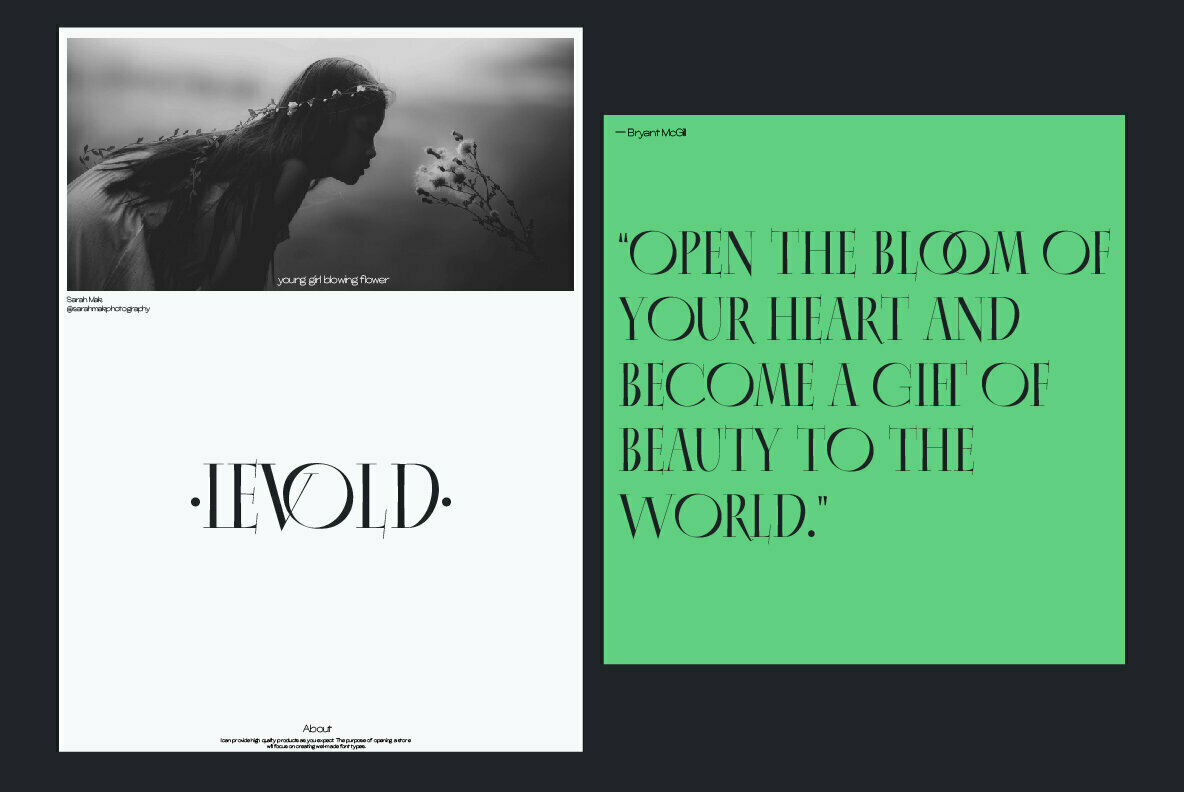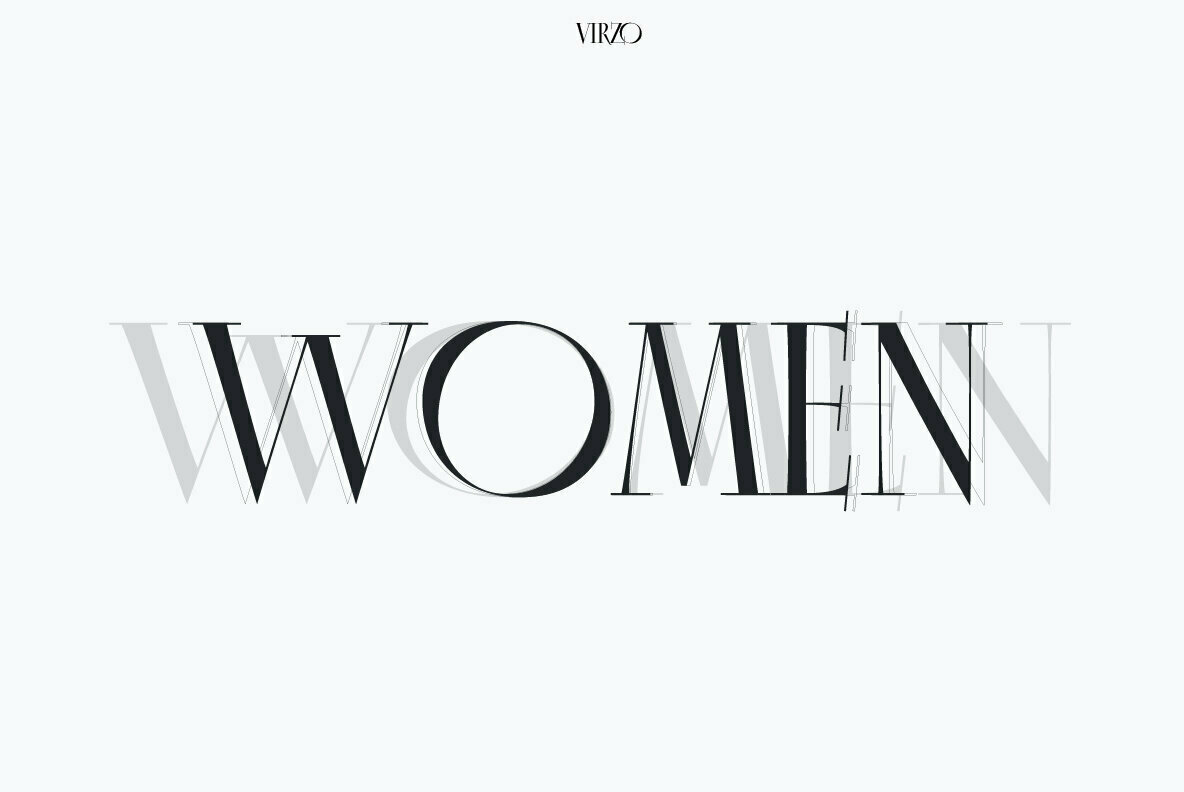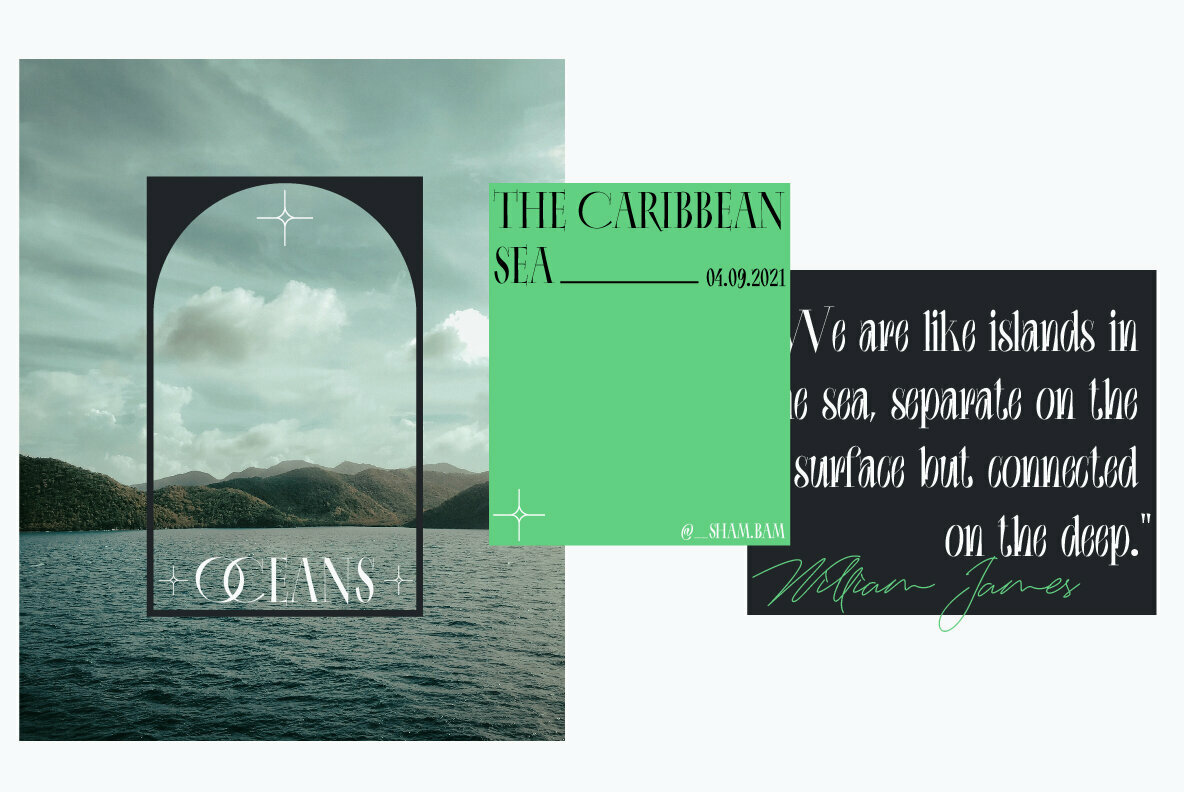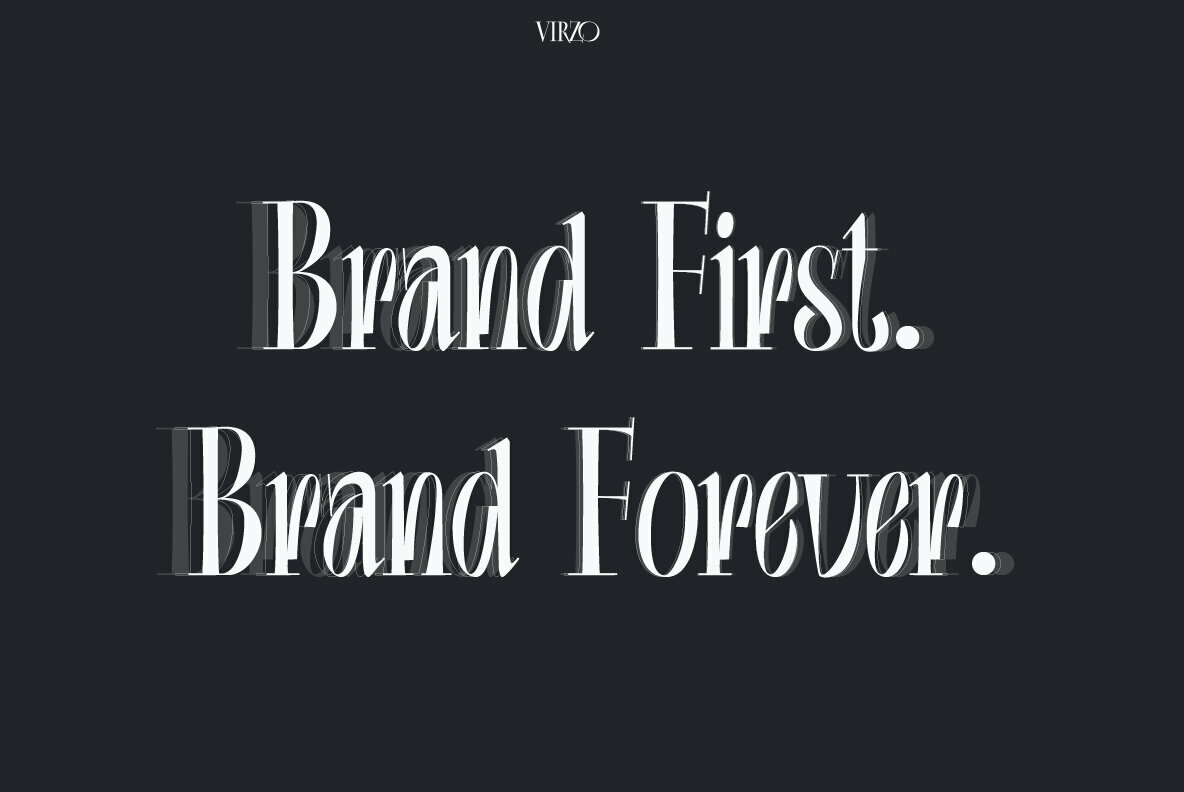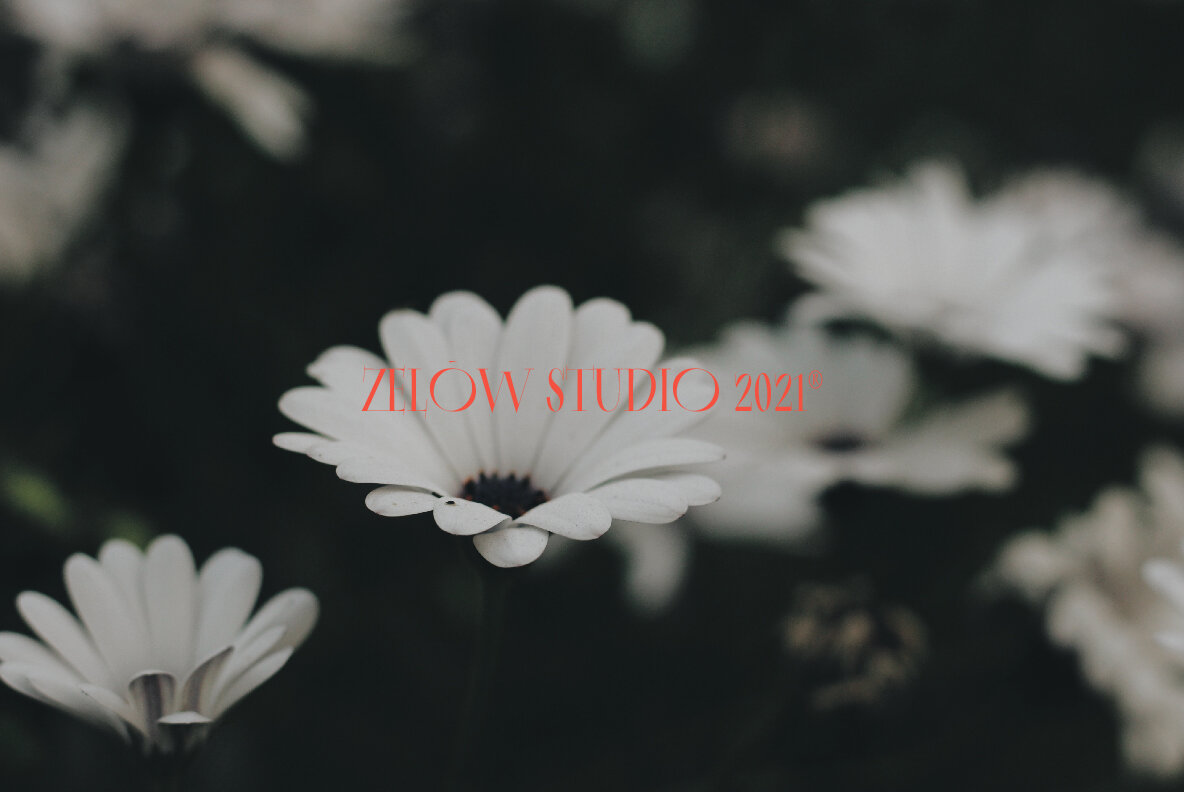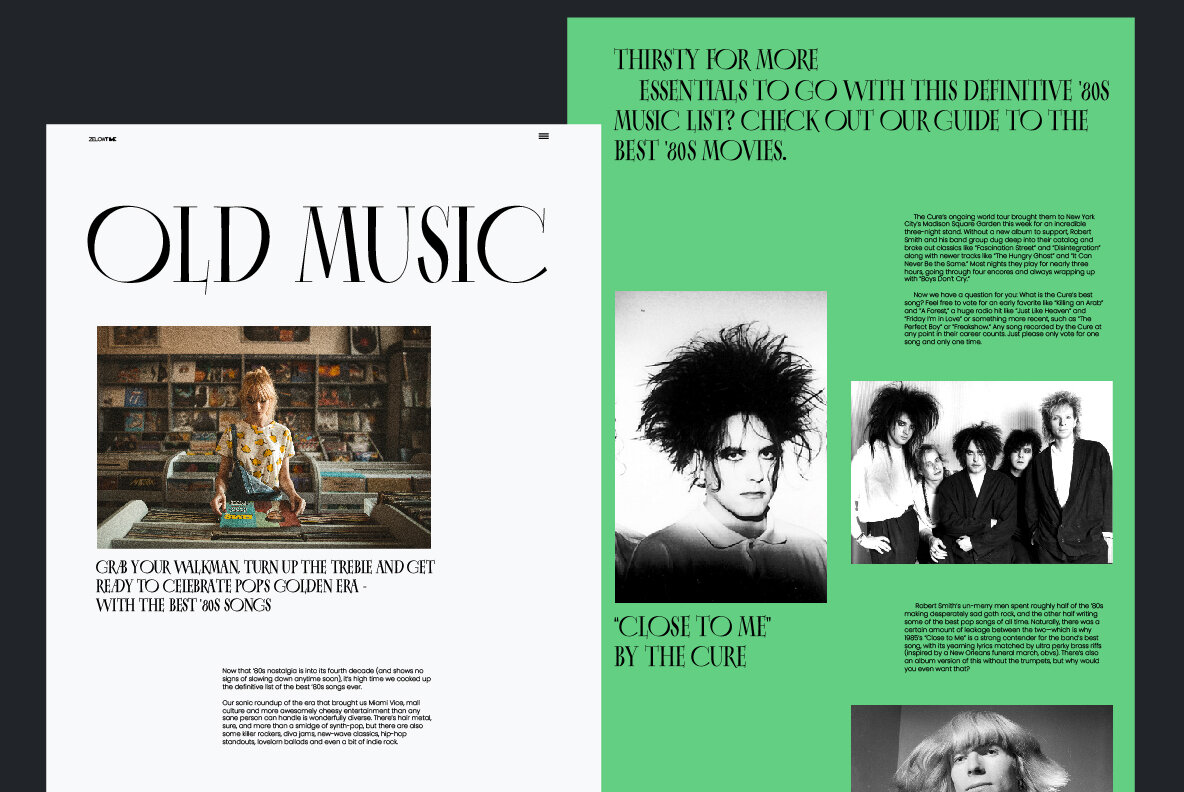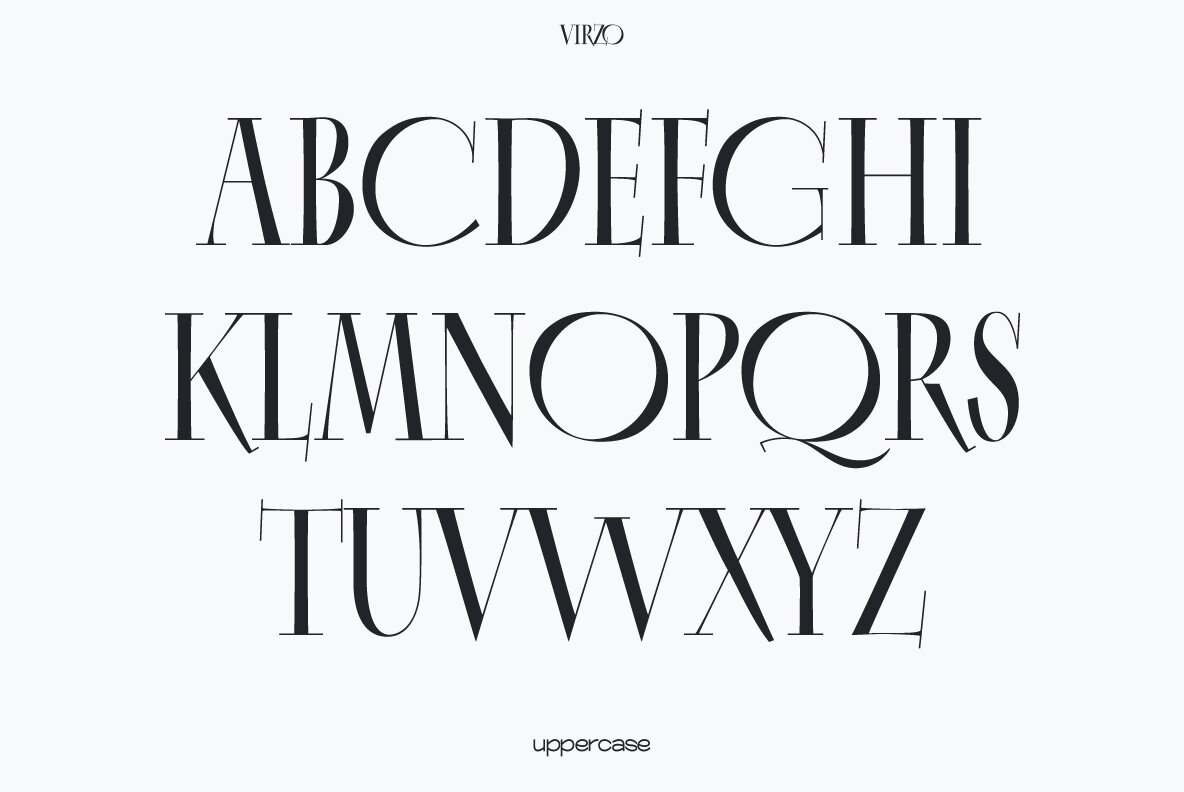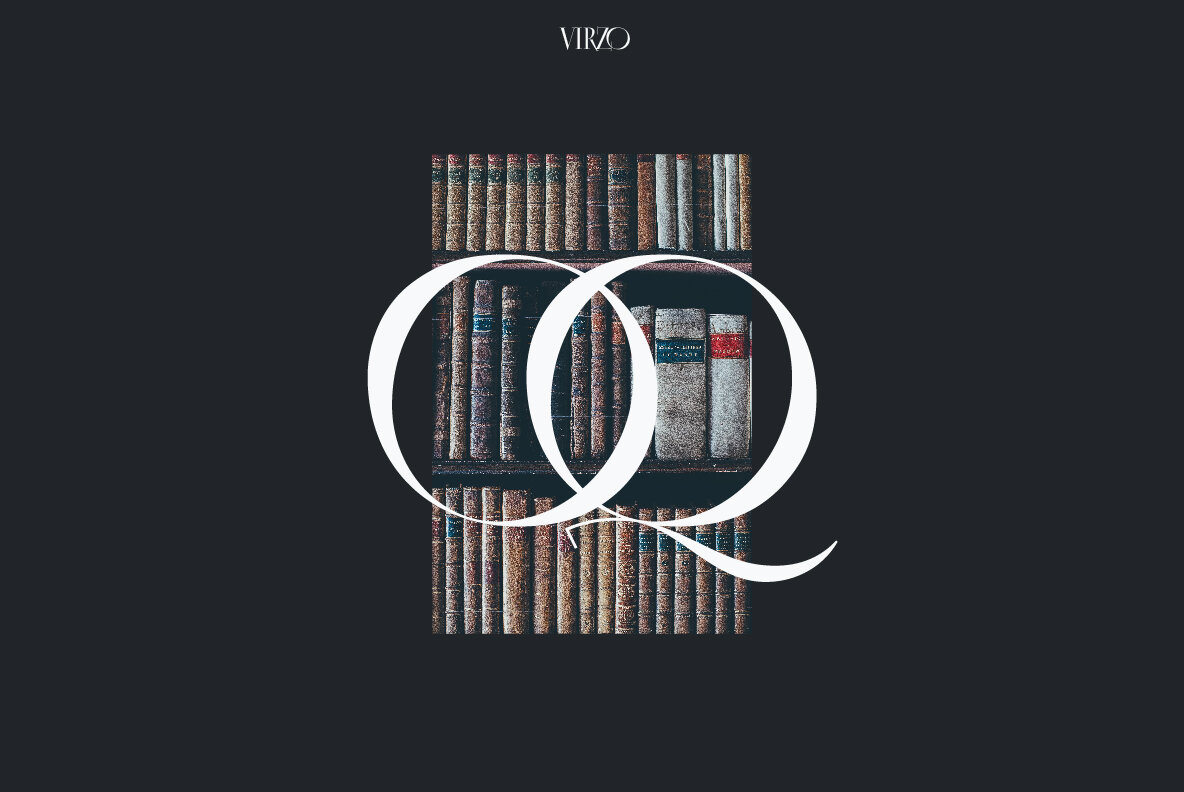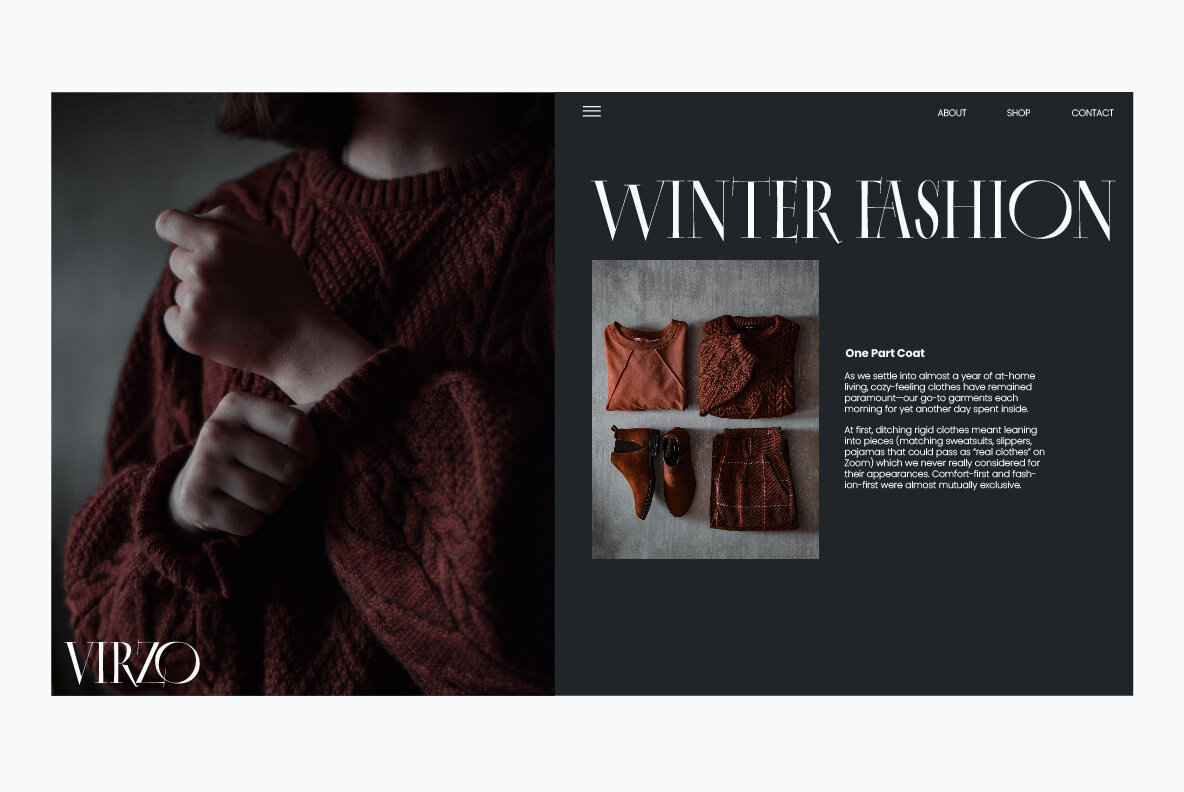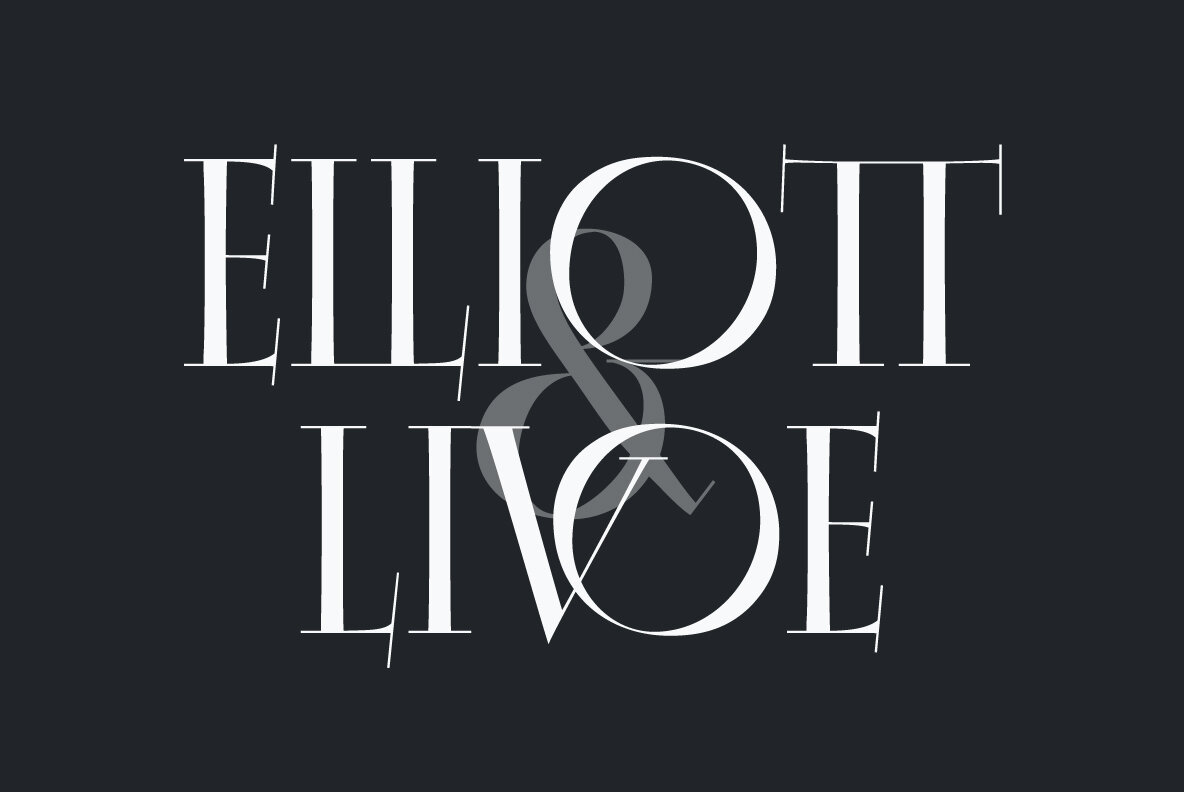
Virzo Font
Virzo is a modern serif with loads of style. A unique modern font that is a mix of old and new. It's soft curves mixed with high contrast glyphs lend it self to both feminine and masculine qualities. Virzo Perfect for branding projects, Logo design, Clothing Branding, product packaging, magazine headers, or simply as a stylish text overlay to any background image.
Virzo has more than 60 upper and lower case ligatures that to give your logo, business card and another project to a unique vintage look.